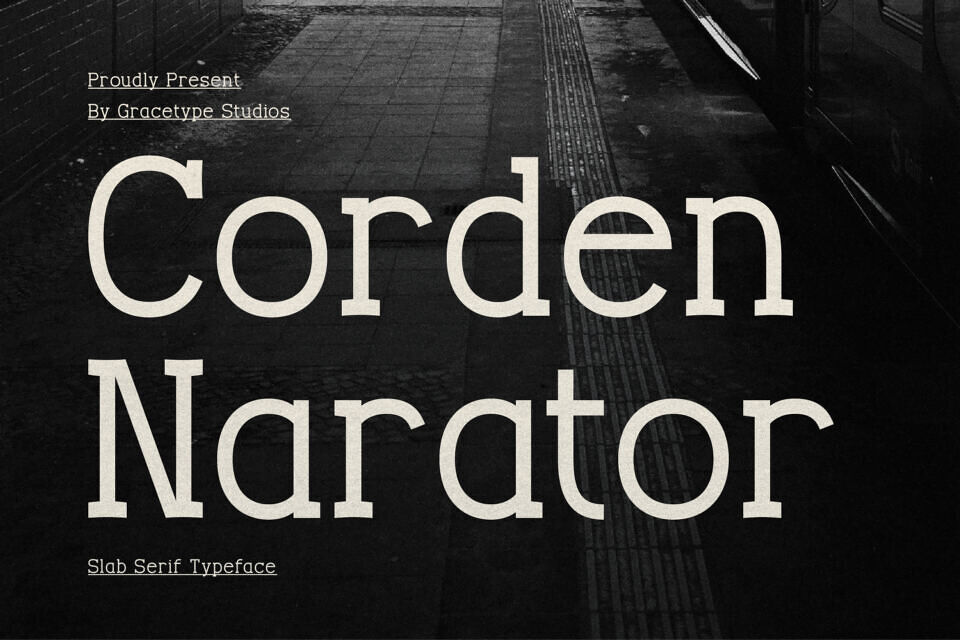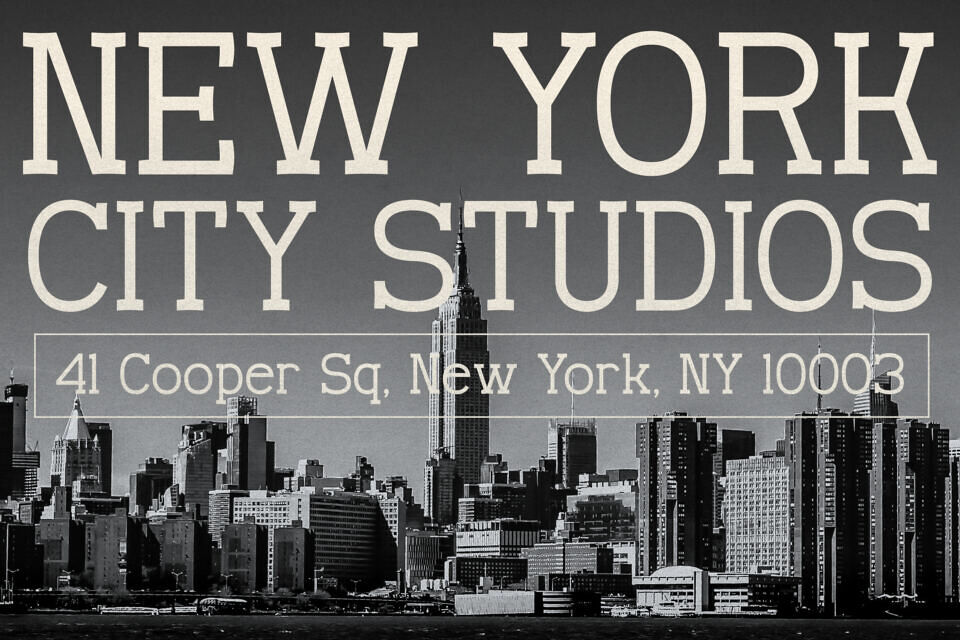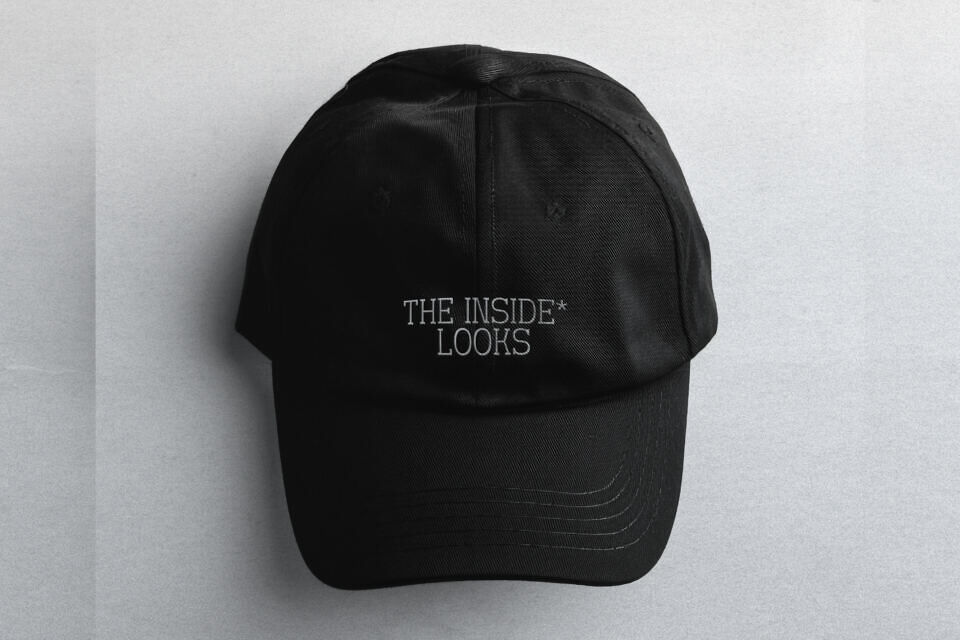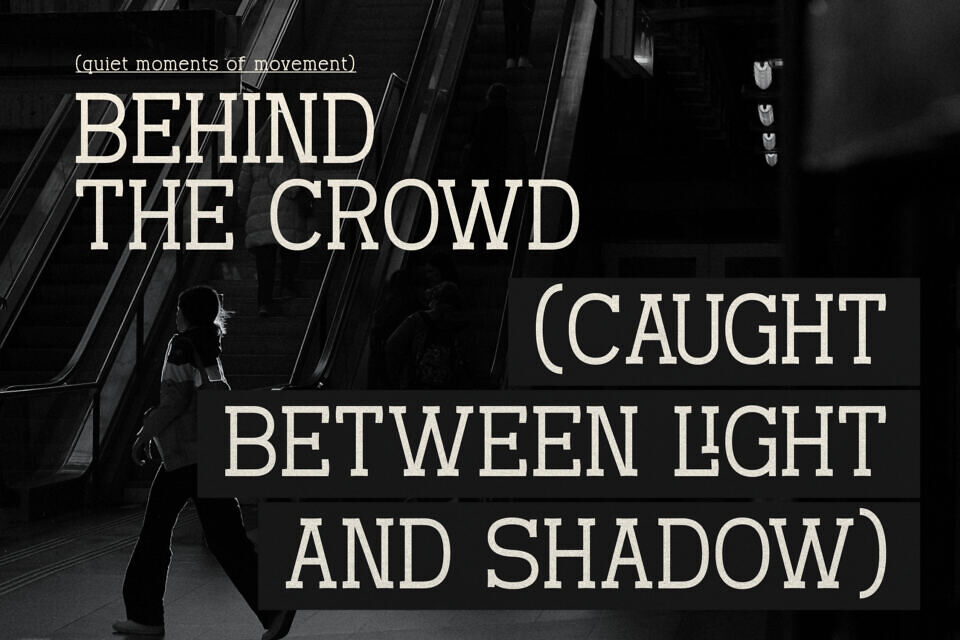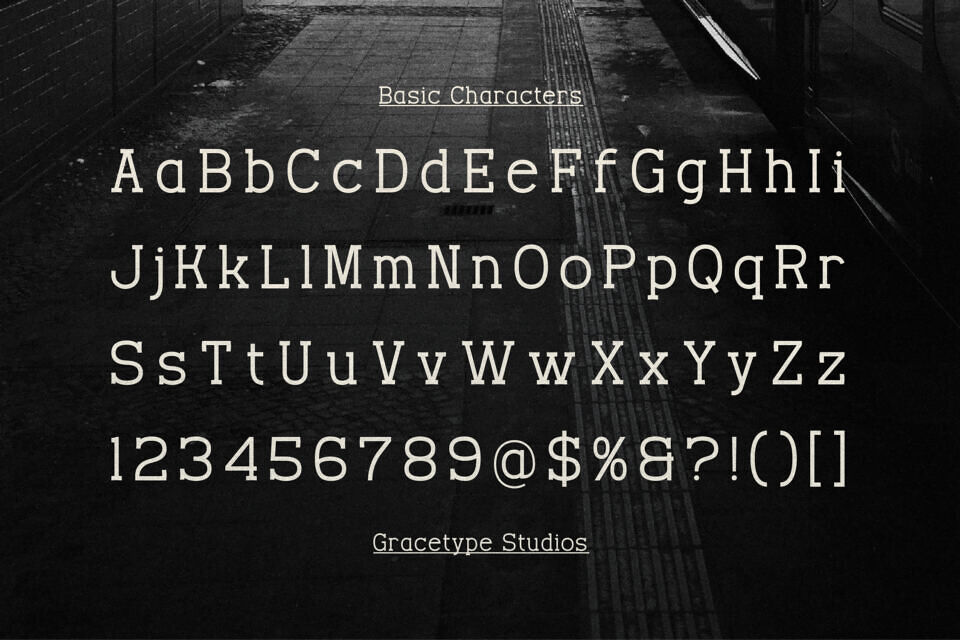
Corden Narator is a robust slab-serif typeface designed for impact and clarity. Characterized by its sturdy, rectangular serifs and balanced letterforms, this font commands attention while maintaining an approachable, storytelling quality. Its clean geometry and generous proportions make it a powerhouse for headlines that need to feel established, reliable, and bold.
Corden Narator bridges the gap between classic editorial authority and modern industrial design. Whether you are crafting cinematic titles, impactful posters, or a timeless brand identity, this typeface provides a grounded foundation that lends weight and professionalism to every word.